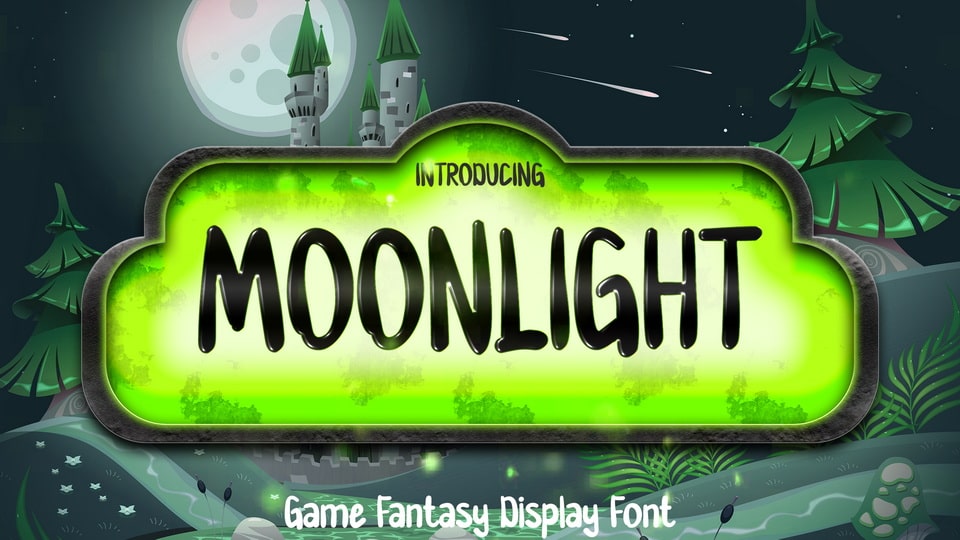
Download Moonlight font, a game fantasy display typeface that brings magic to your front door. Its tall and funky shape suits the need of your project to stand out from others.